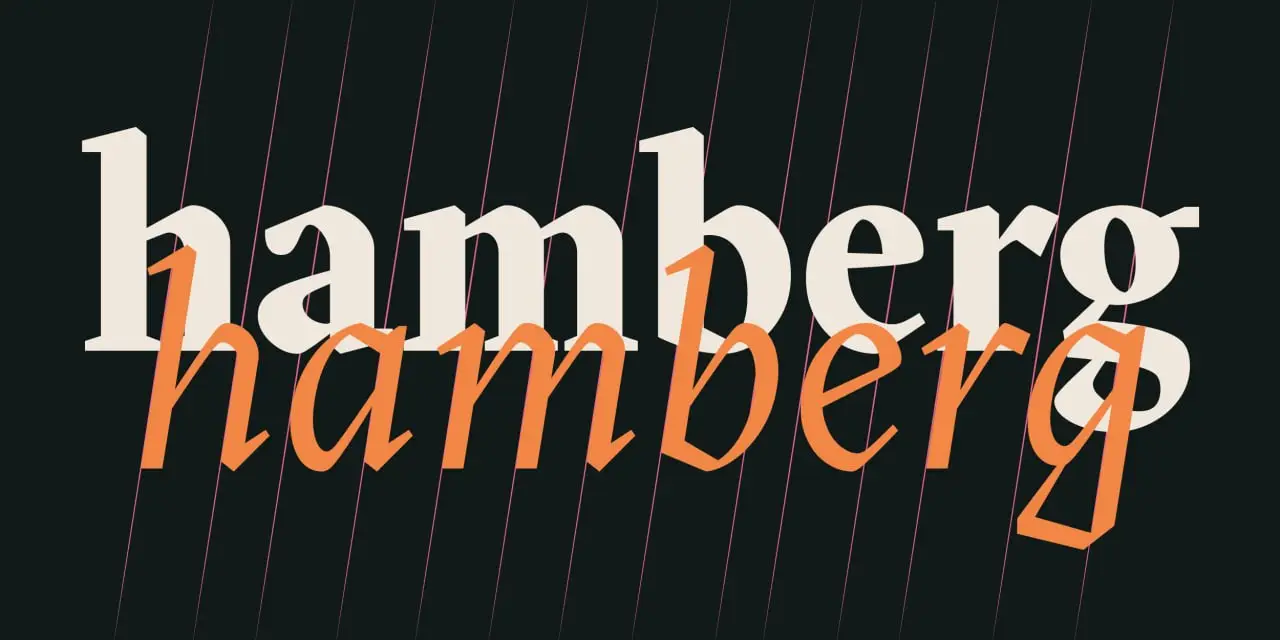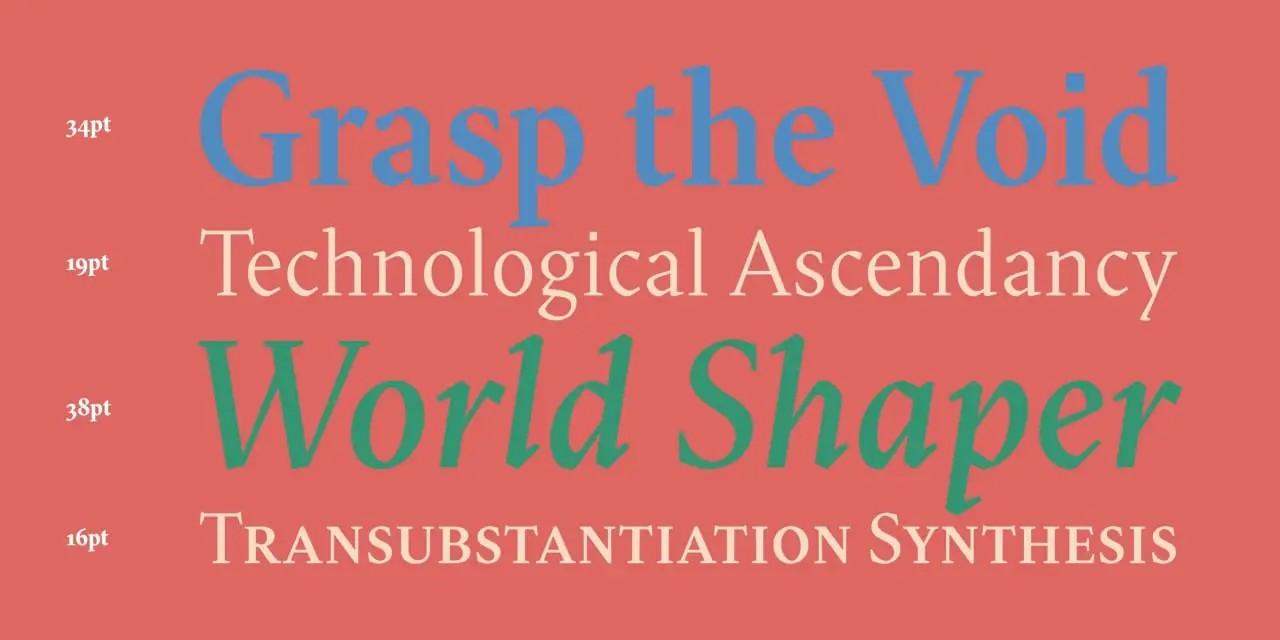
Blizka Font By Yuexin Huo
Introducing the Blizka Font by Yuexin Huo, a beautifully crafted typeface that combines elegance with modern design. This font is perfect for a variety of applications, including branding, logos, web design, and print materials.
• Multiple weights for versatile use
• Supports a wide range of languages
• Easy to read in both large and small sizes
• Ideal for creating eye-catching logos and branding materials
• Use in web design for a modern look
• Great for print projects like posters and flyers